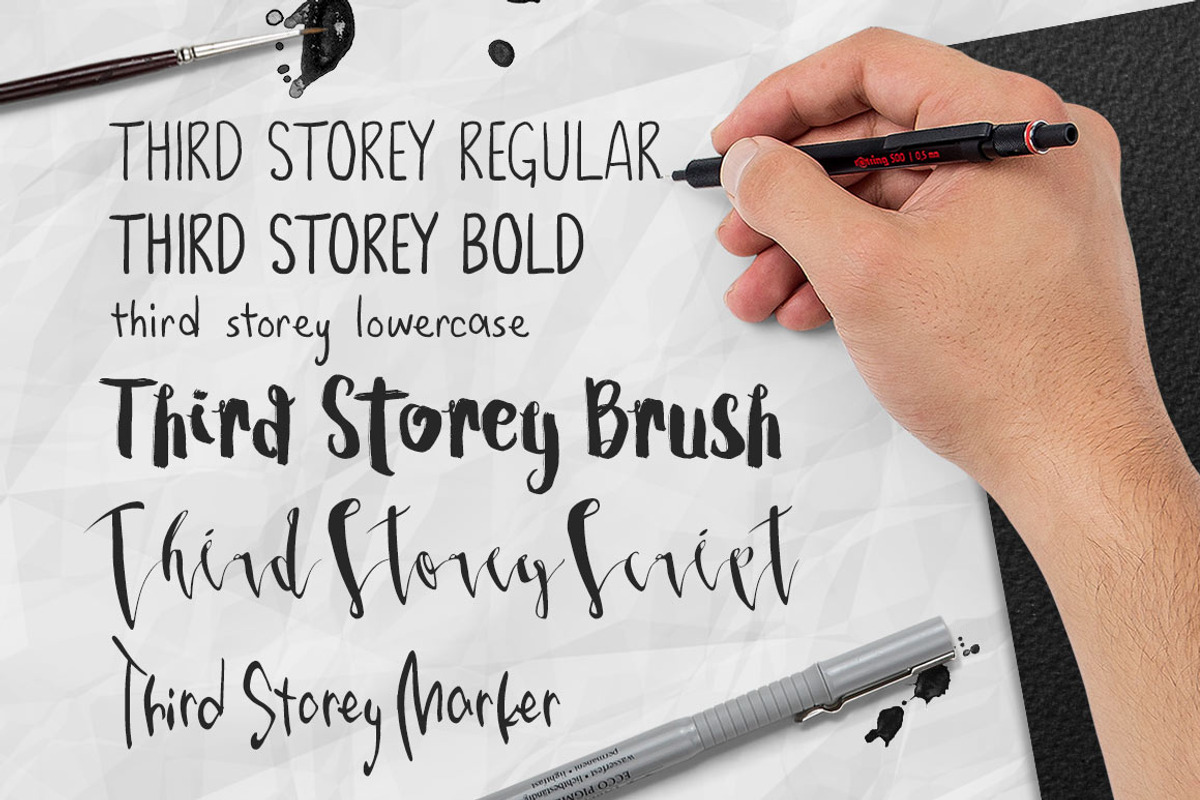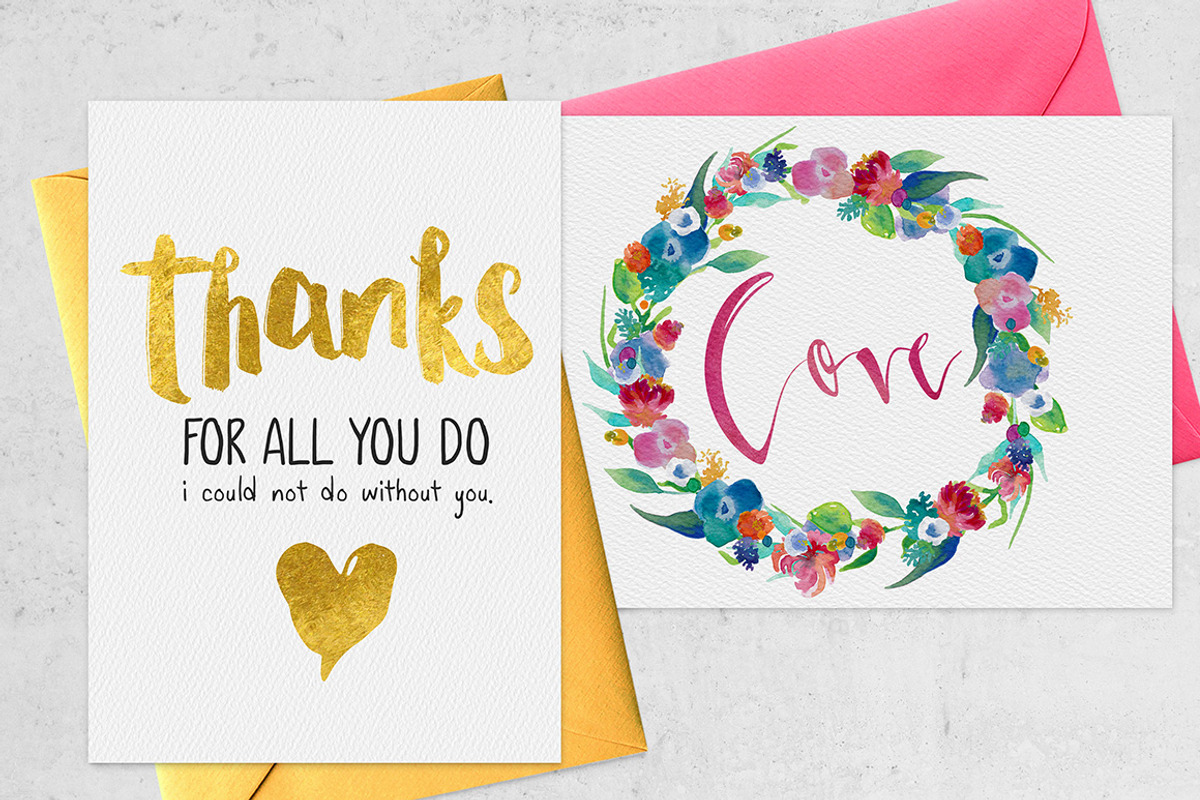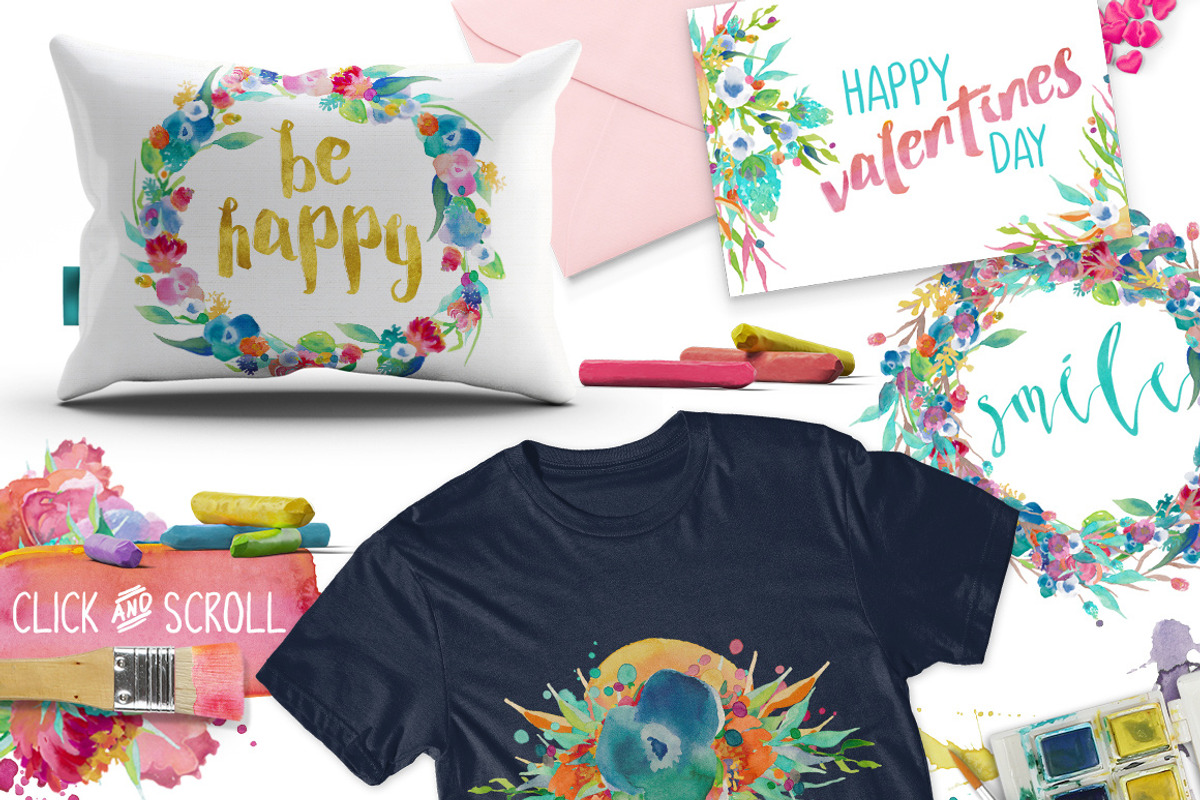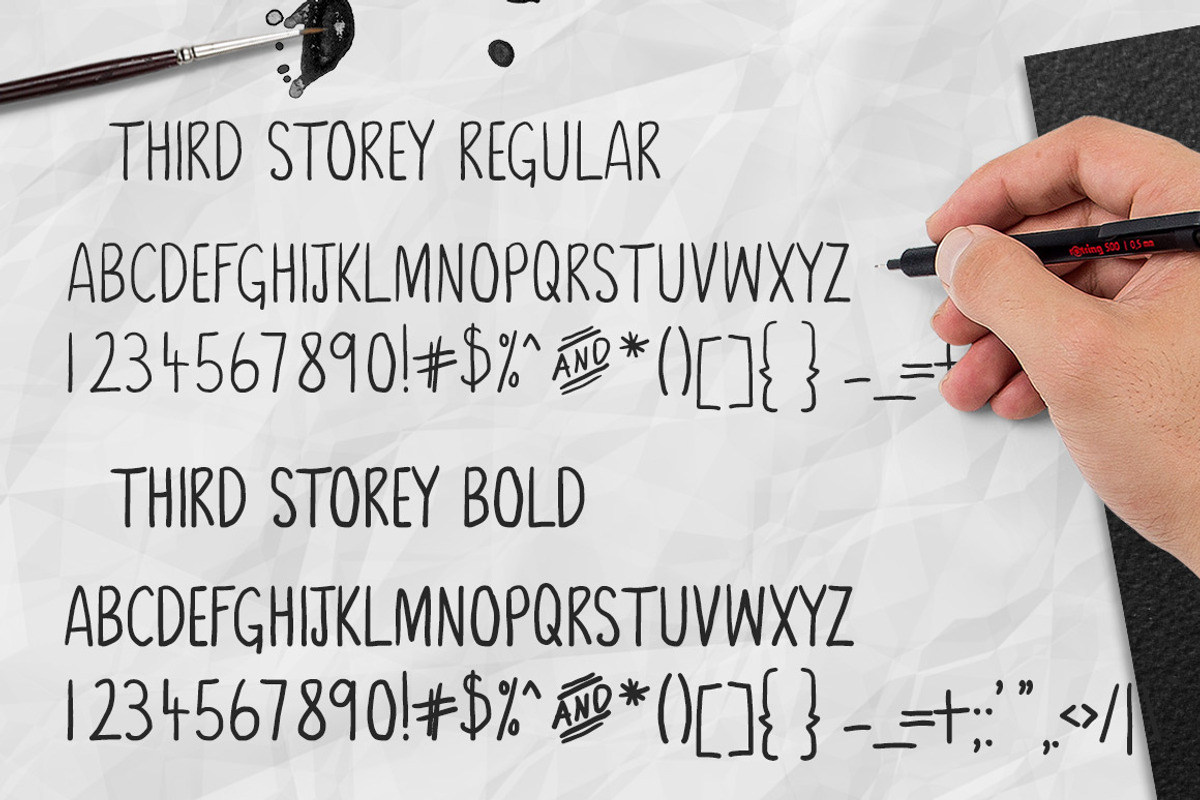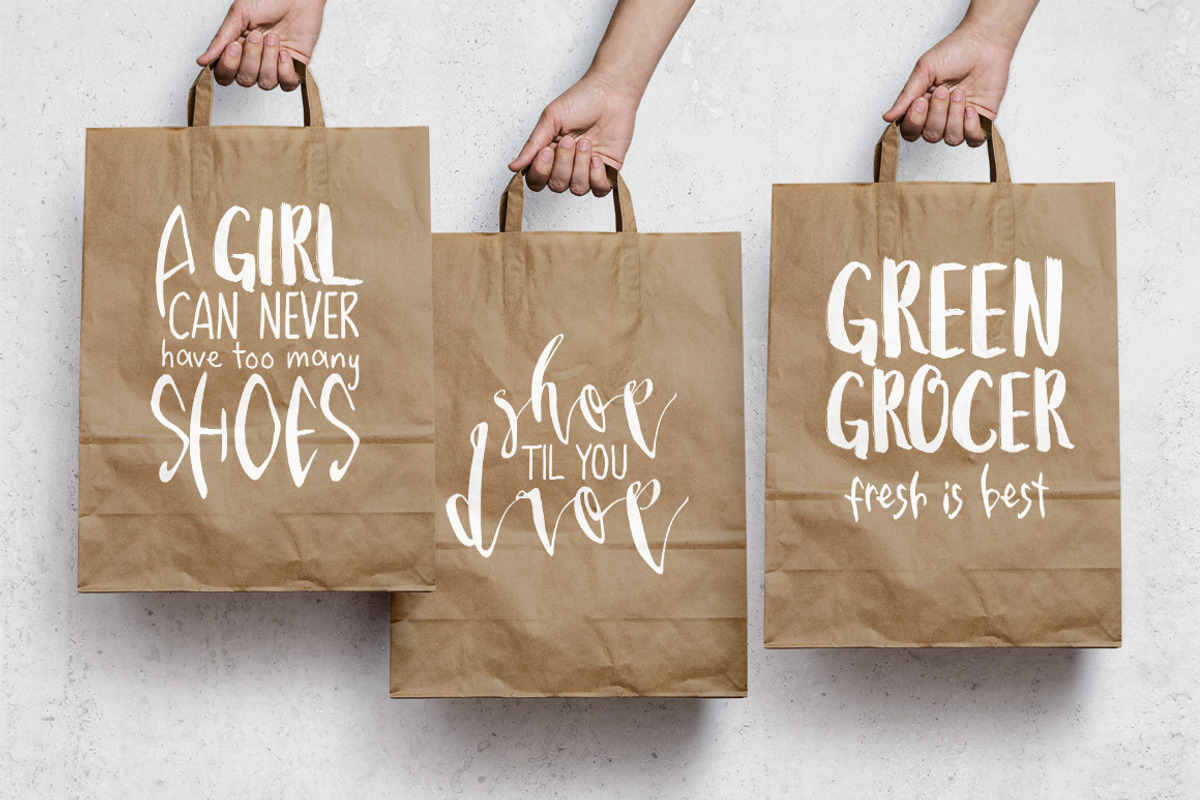
Typolicious Font Bundle Third Storey
Typolicious Font Bundle Third Storey by Creativeqube Design is a font selected for branding, posters, packaging, typography.
- Includes; Third Storey Standard Third Storey Bold Third Storey Lowercase Third Storey Brush Third Storey Script Third Storey Marker All font
Typolicious Font Bundle Third Storey by Creativeqube Design fits naturally into Branding, posters, packaging, typography.